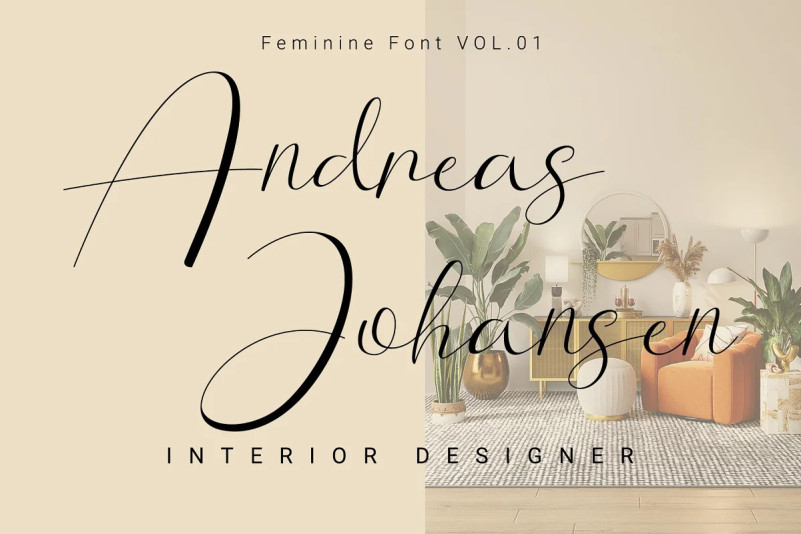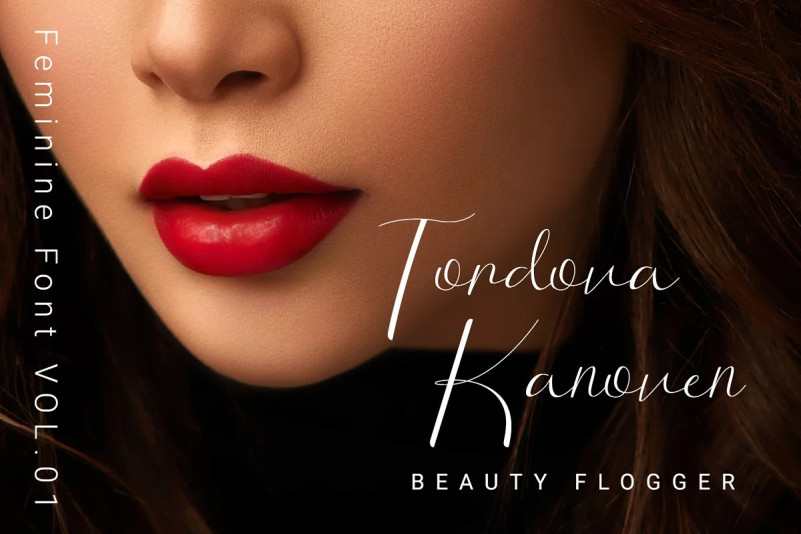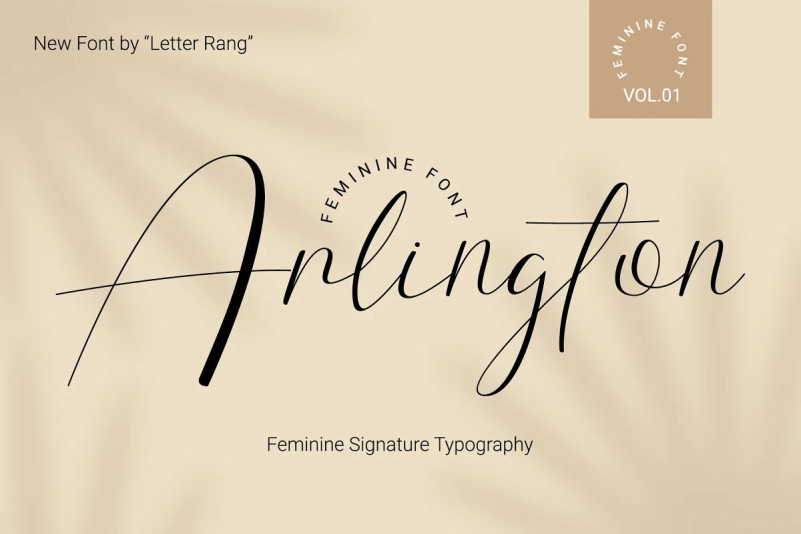
Arlington Font
Arlington Font is a font inspired by the signature and gentleness of a woman. This font has a feminine style that is perfect for invitation cards, logos, brands, greeting cards, signatures, and much more.